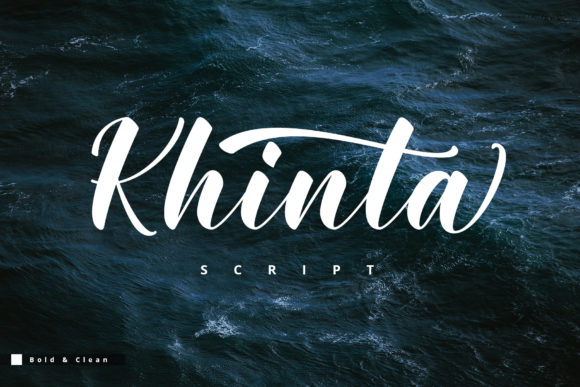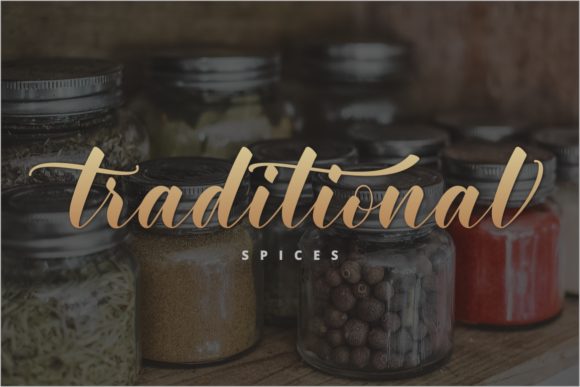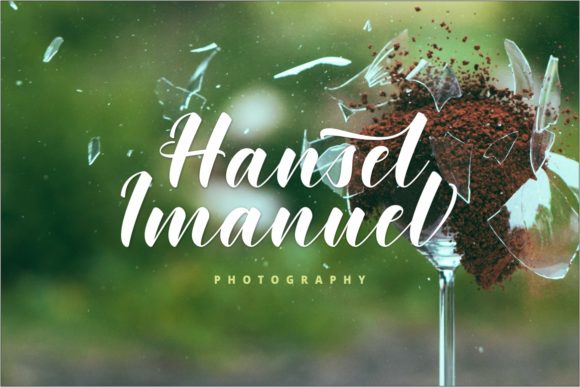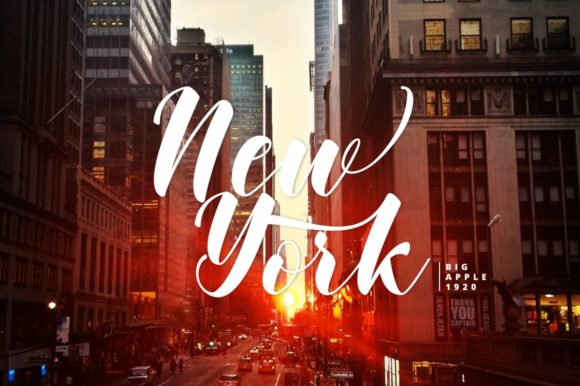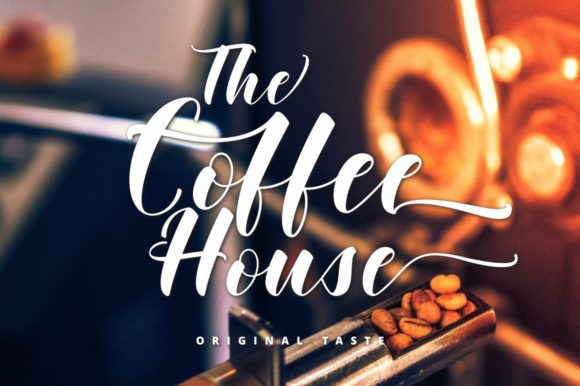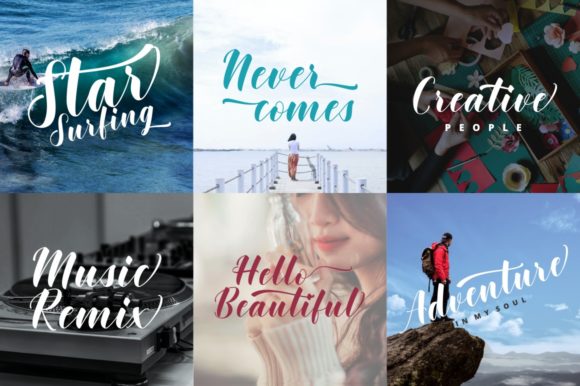
Khinta Script Font
About Khinta Script Font
This fun, bold and adventurous handwritten font comes with a cool twist. Khinta will add a personal feel to any design project.